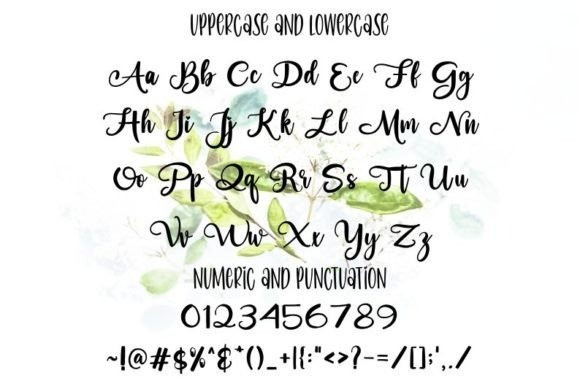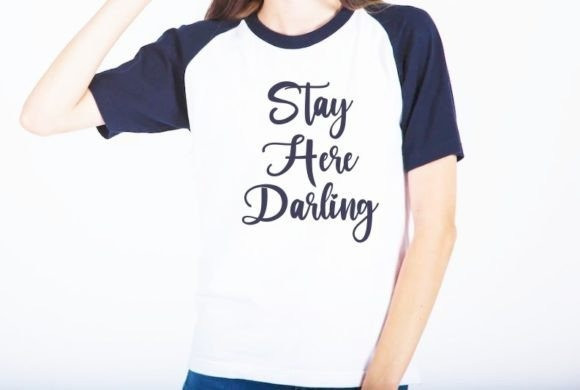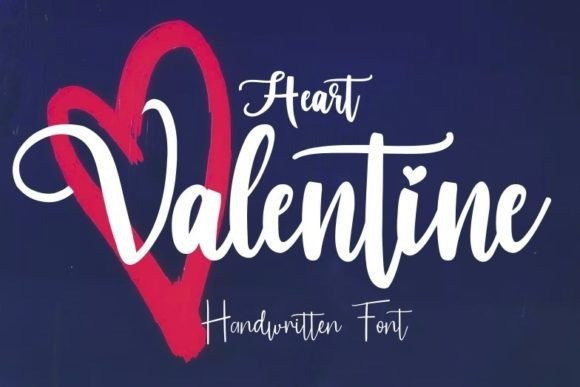
Heart Valentine Font
Heart Valentine Script Font is a gorgeous script font. Trendy and stylish, this font will elevate each of your creations. Handmade is PUA encoded which means you can access all of the glyphs and swashes with ease!